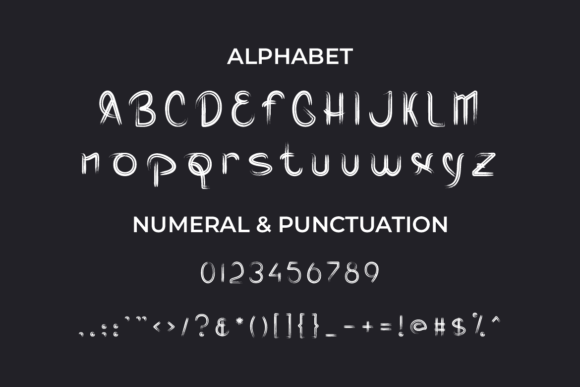
Introduction to Pudar Font
Pudar is a cool and modern display font.
No matter the topic, this font will be an incredible asset to your fontsโ€™ library, as it has the potential to elevate any creation .
Key Features of Pudar Font